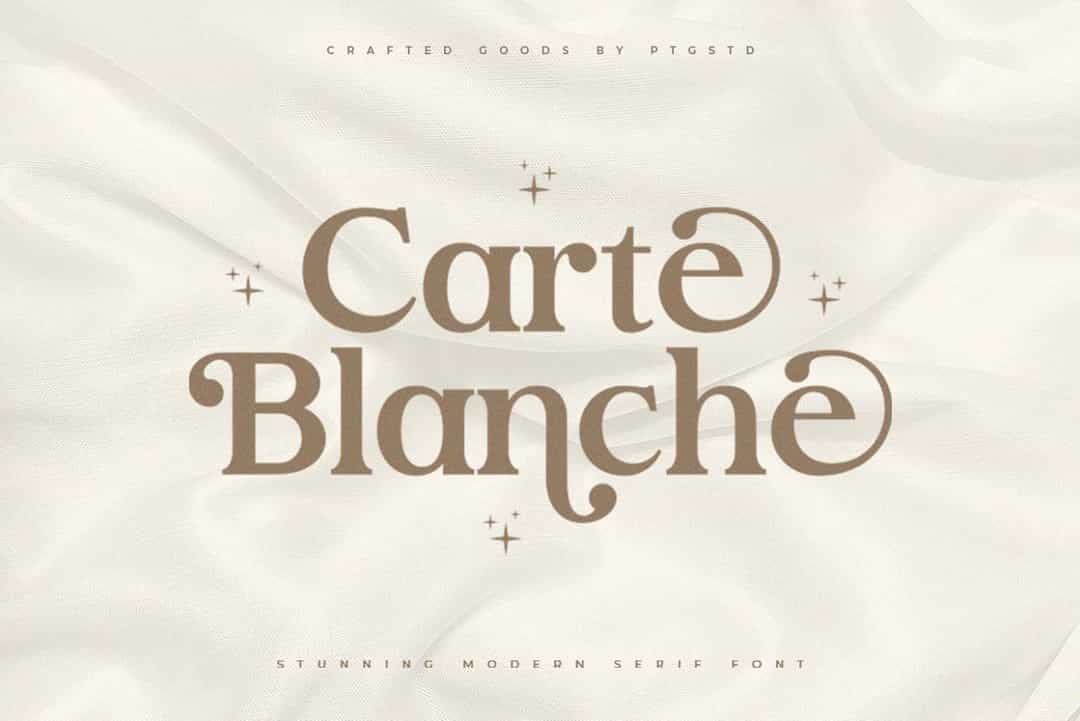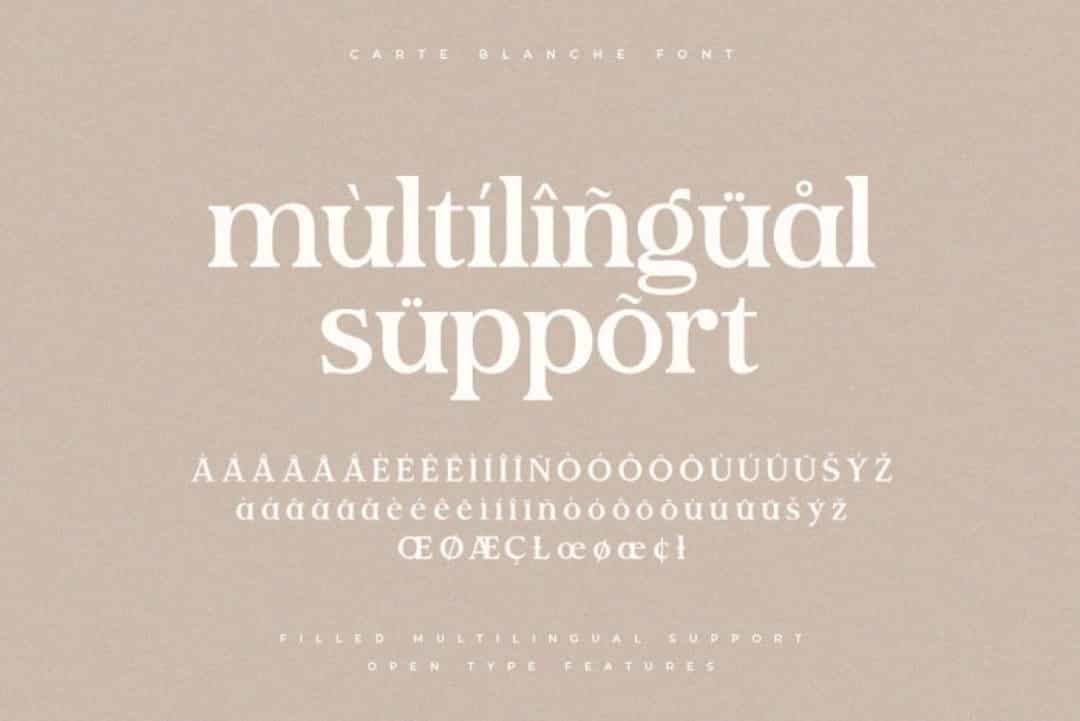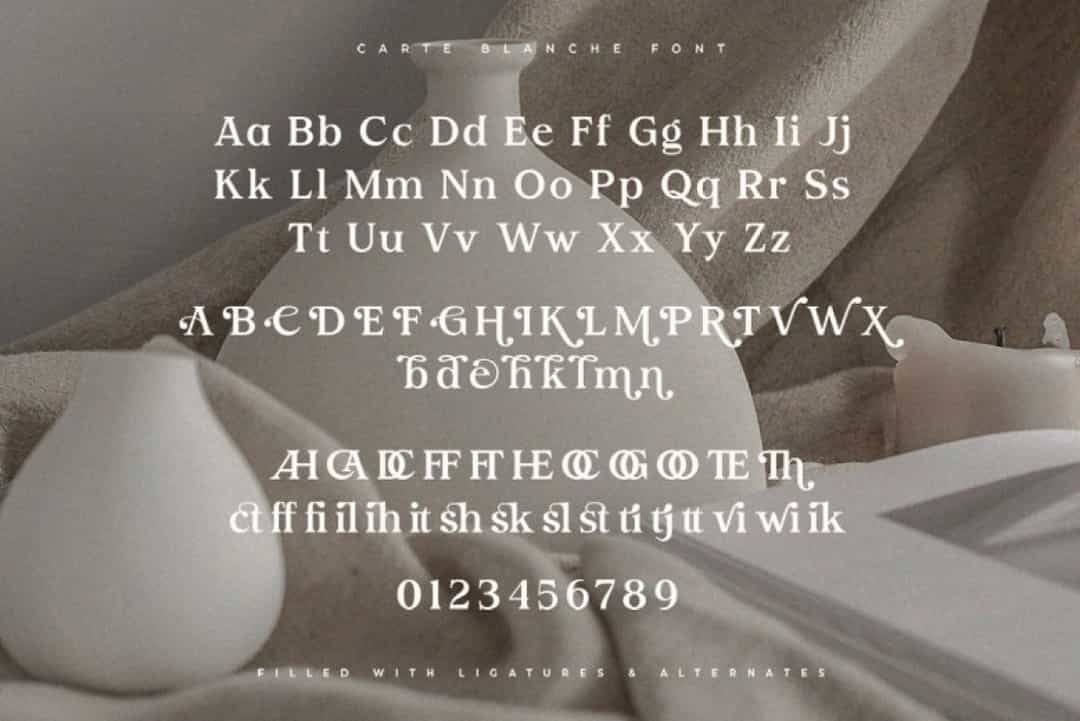
Carte Blanche is an elegant serif font with modern styling and perfect form that draws upon classic calligraphy tradition. Not too thin nor bulky; rather flexible and balanced in appearance – this font was specifically created to enhance the visual aesthetics of designs.